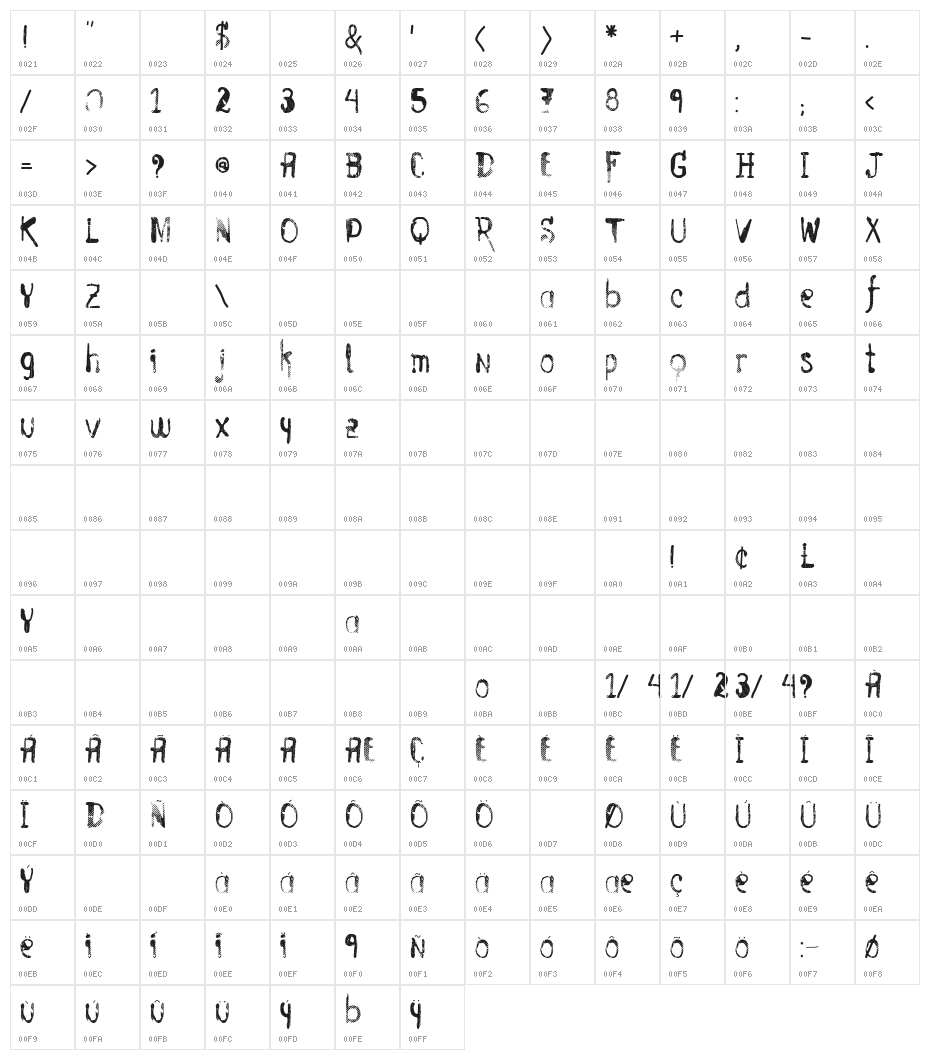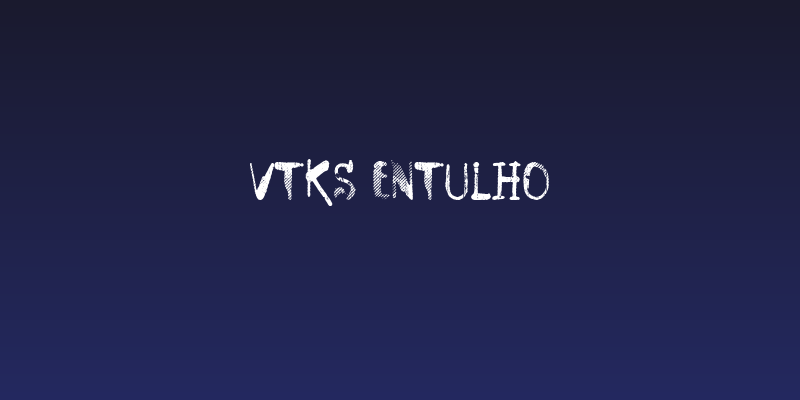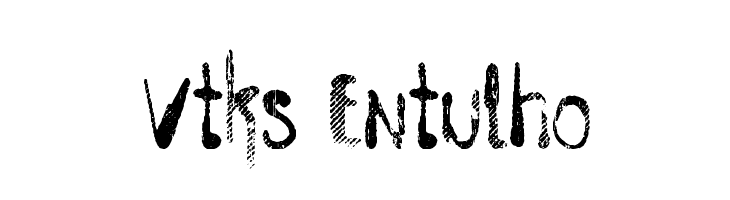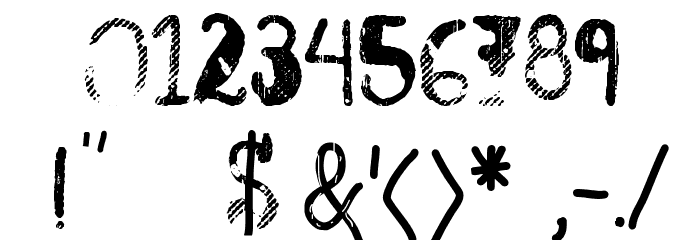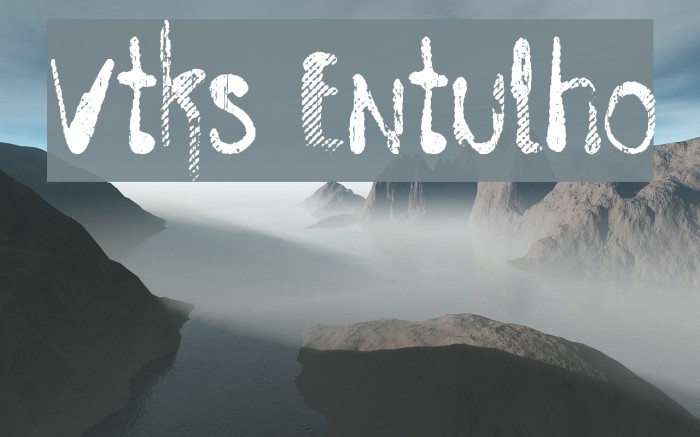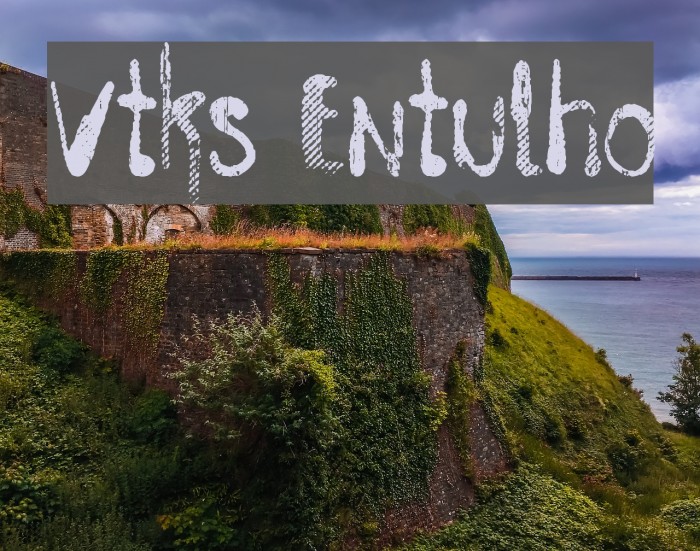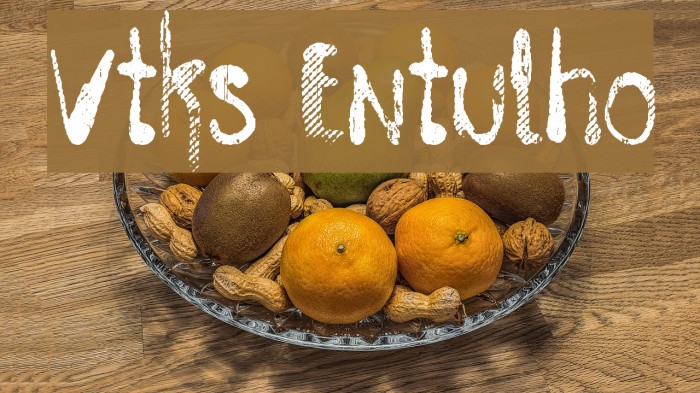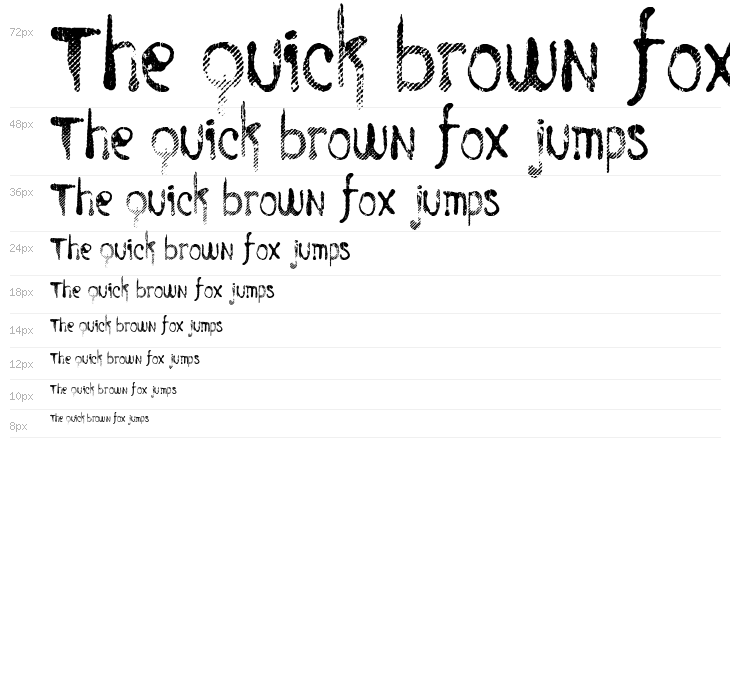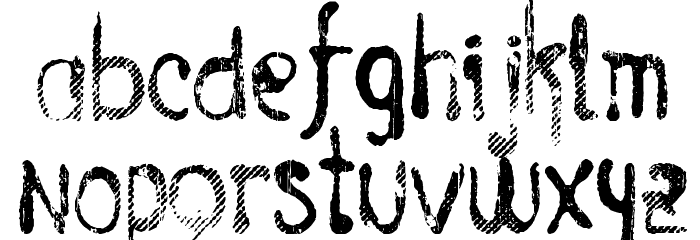
Vtks Entulho Font
Vtks Entulho Description
This font features a distressed, grunge style with a textured appearance that mimics worn or eroded surfaces. The characters are bold and uneven, with a hand-drawn quality that adds to its rugged and raw aesthetic. The uppercase and lowercase letters maintain a consistent style, with varying levels of distress and texture. Numbers and special characters follow the same design, enhancing the overall cohesive look. This font is ideal for projects that require a bold, edgy, and unconventional typeface.
| Overall Style | Grunge, Raw, Edgy |
| Use Case | Headlines, Posters, Branding |
| Proposed Projects | Ideal for album covers, posters, streetwear branding, or any project needing a bold, edgy look. |